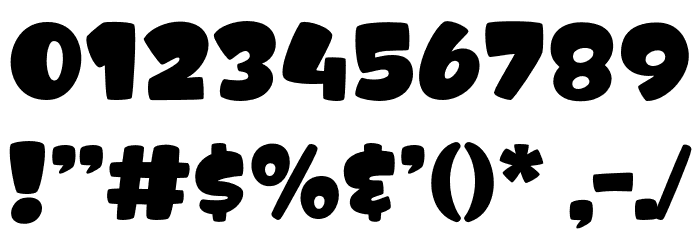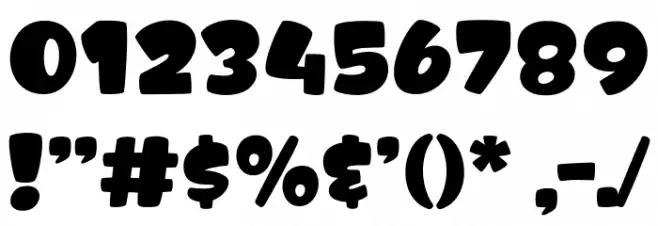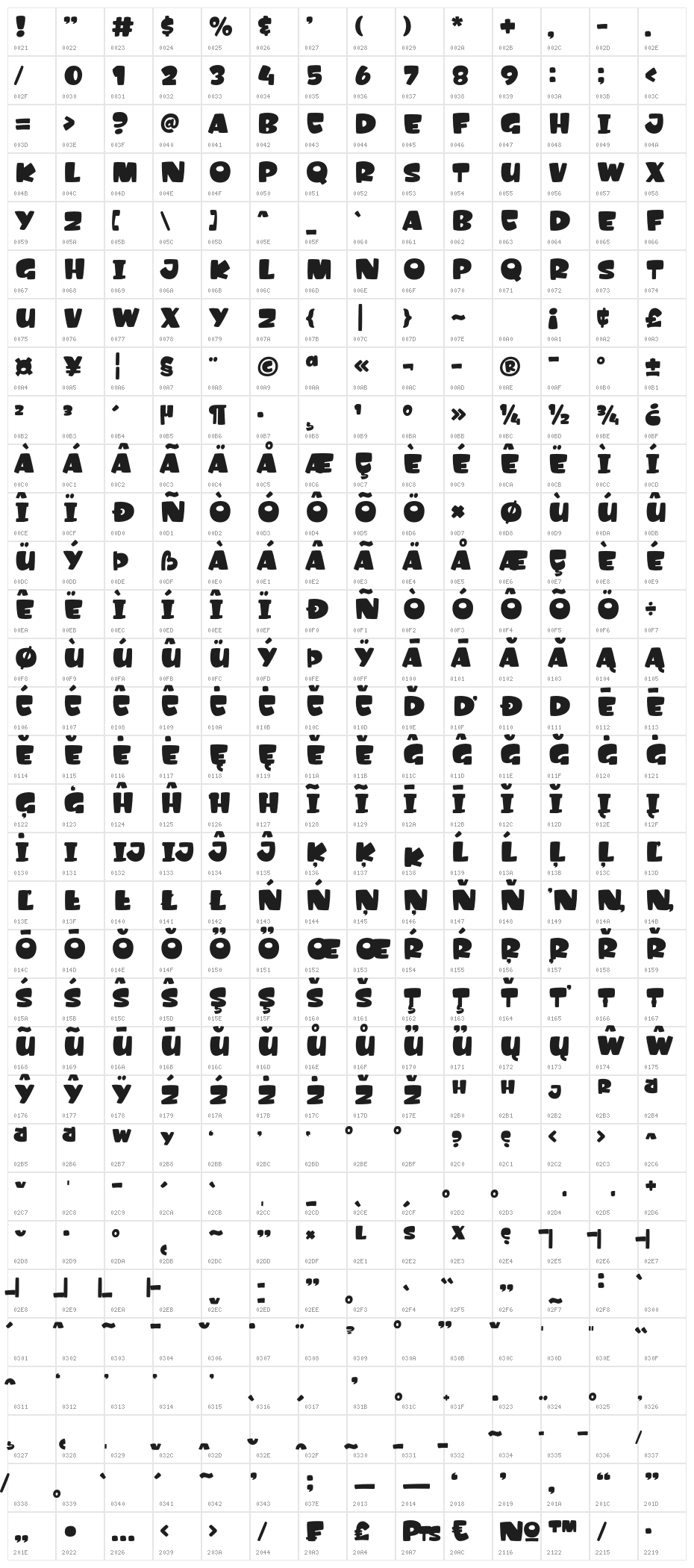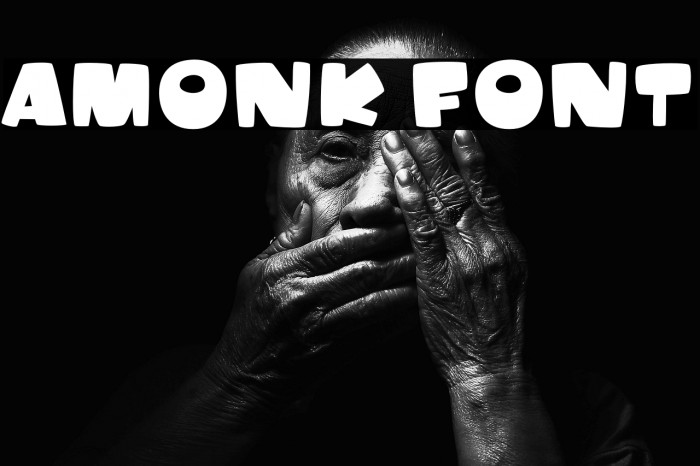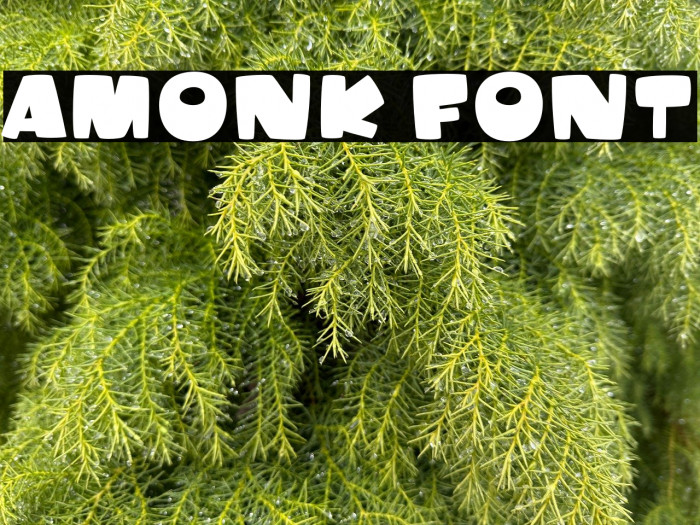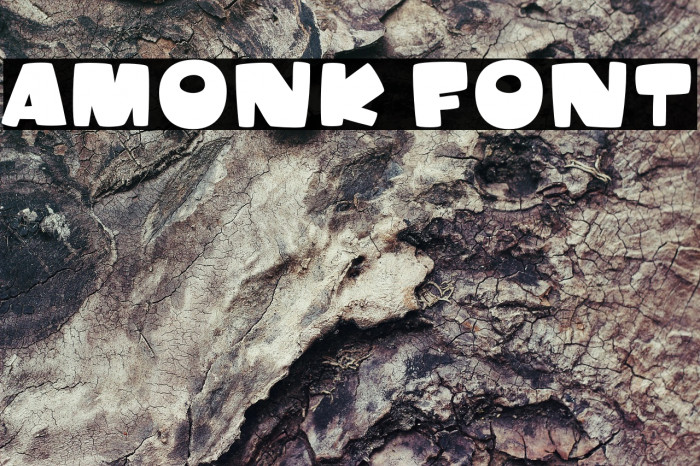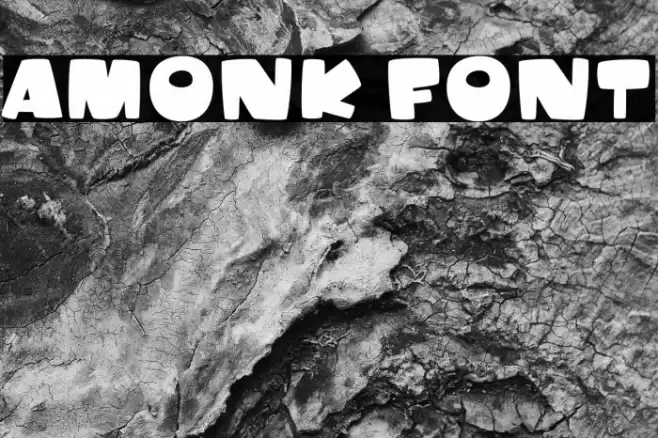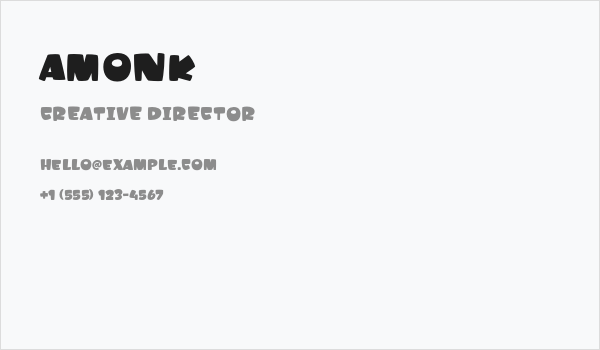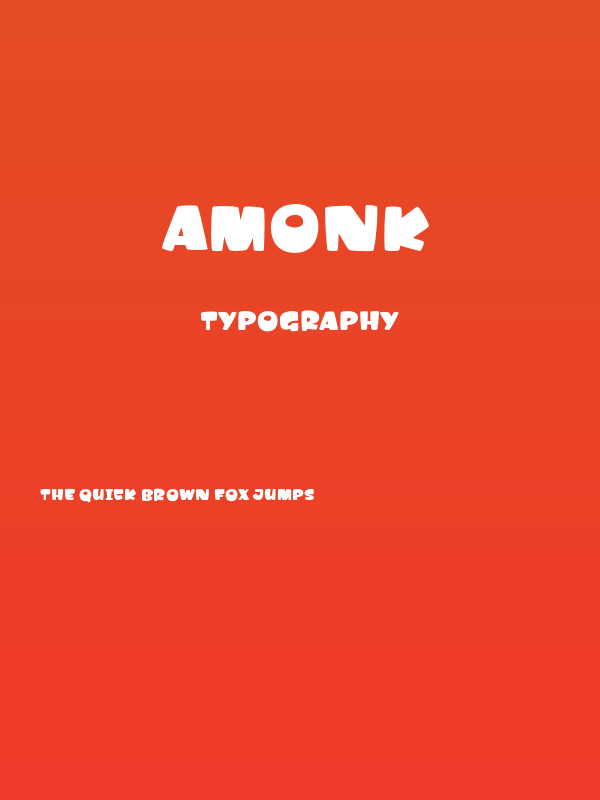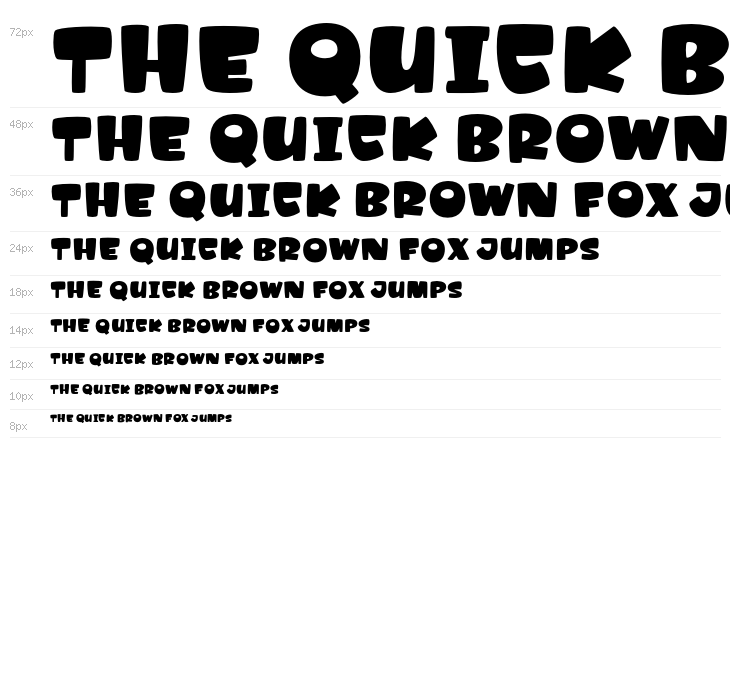
Amonk Font
Amonk Description
This font features bold, rounded characters with a playful and chunky appearance. The letters are uniformly thick, giving them a strong presence on the page. The rounded edges and lack of sharp angles contribute to a friendly and approachable look. The font maintains consistent weight across all characters, ensuring a cohesive visual style. It is particularly suitable for designs that require a fun and informal touch, such as children's books, playful branding, or eye-catching headlines. The numbers and special characters follow the same design principles, ensuring uniformity throughout.
| Proposed Projects | Ideal for children's books, playful branding, eye-catching headlines, and informal designs. |